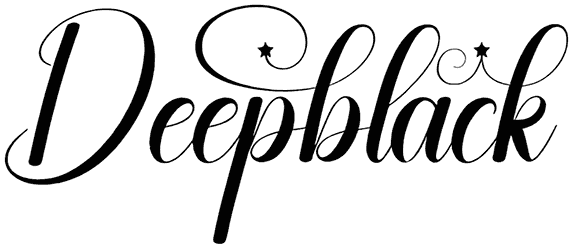
Deepblack Font
Deepblack font has a dramatic script calligraphy personality where the letters flow with elegance, confidence, and handcrafted beauty. Its sweeping strokes and artistic rhythm give words a luxurious signature feel, making it perfect for designs that need a personal touch with a sophisticated and expressive character.
Use Deepblack font for wedding invitations, luxury branding, perfume packaging, fashion logos, signature designs, or premium social graphics. Pair this calligraphy font with refined colors, gold details, soft textures, and spacious layouts to highlight its graceful movement and create a truly elegant visual style.
this is a sweet and friendly handwritten display font. Cute and fun, this font is ideal for writing wedding invitations, cards, or any other design that might need a playful touch!